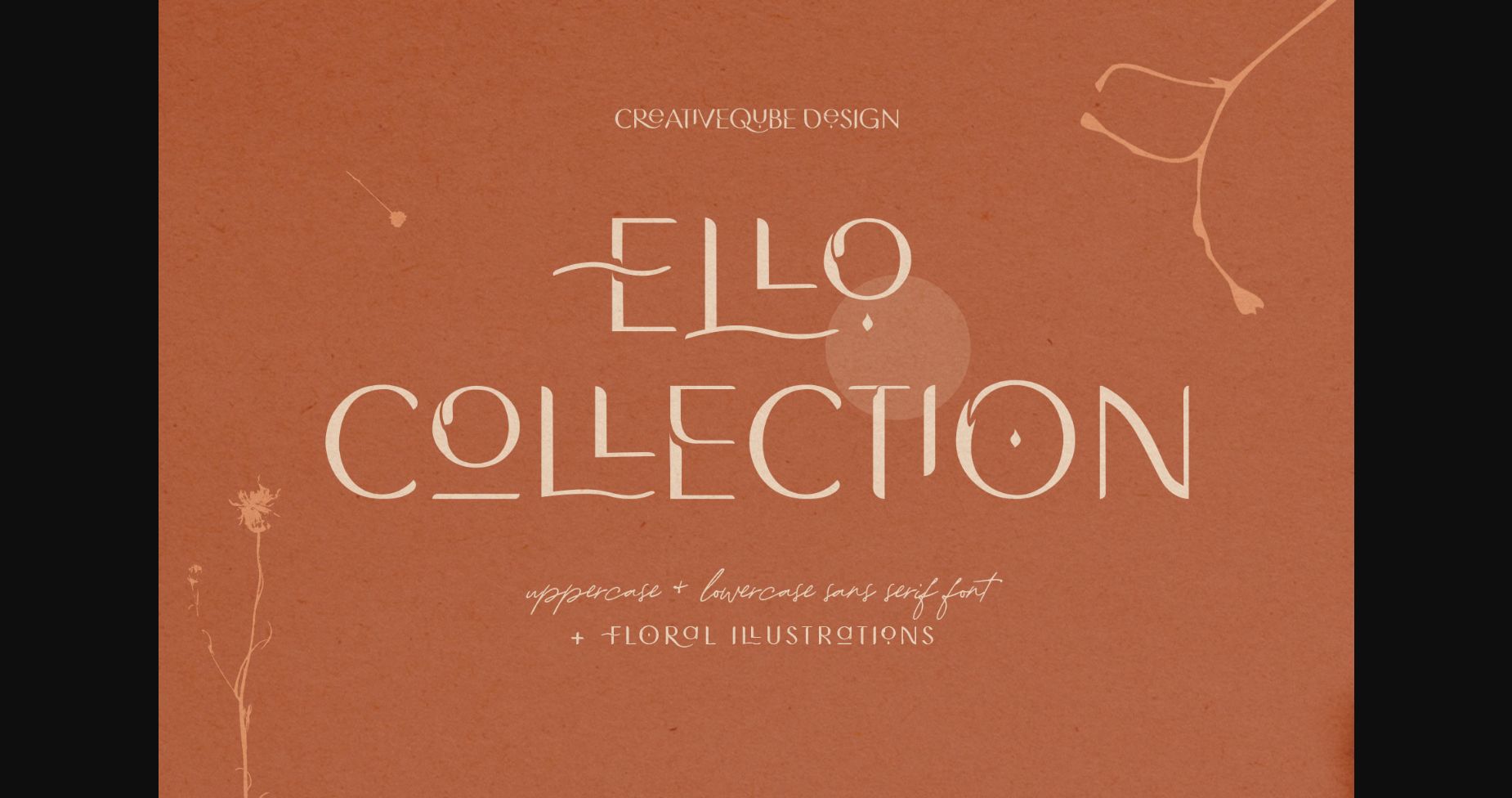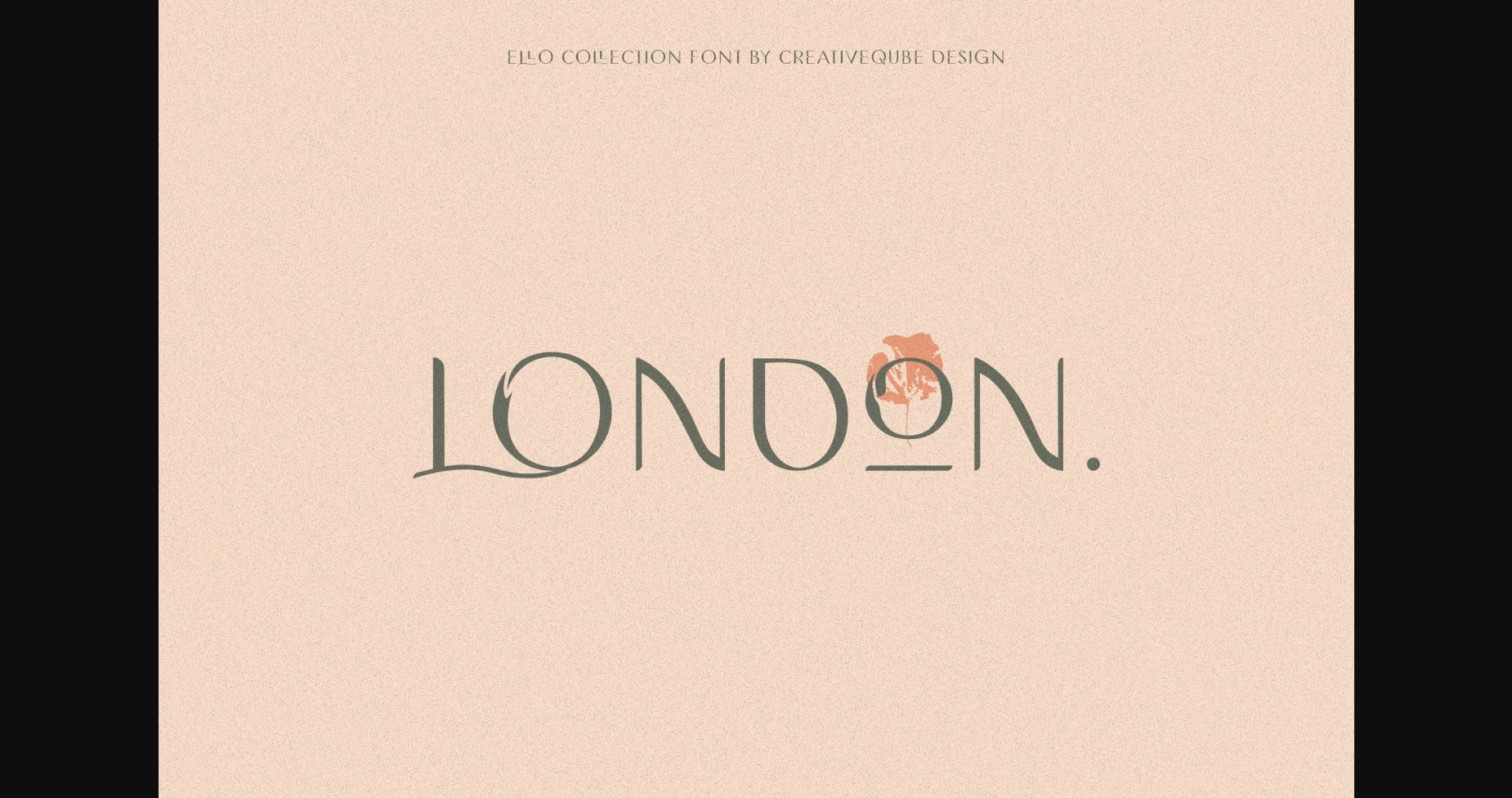
About Ello Collection Font
Ello Collection is a genuine vintage styled sans serif font charged with alternates and ligatures that makes for stunning logos, quotes, wedding invites, blog posts, Instagram, and more! This font is PUA encoded which means you can access all of the glyphs and swashes with ease!